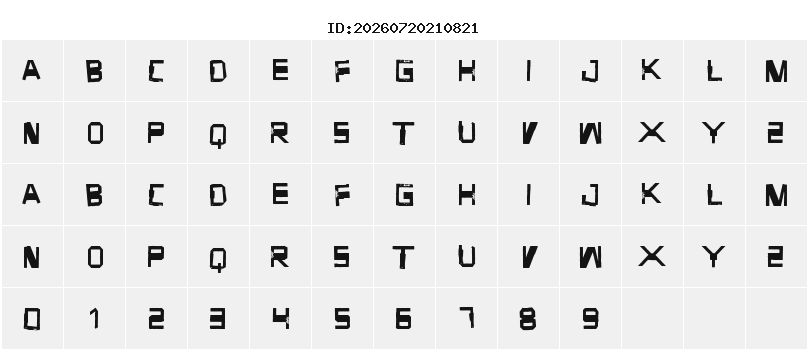
• Font Name: Forgotten Junk
• Designer: Galdino Otten
About Forgotten Junk.ttf
Forgotten Junk.ttf is a modern, elegant sans-serif font designed for ultimate readability and visual harmony. Perfect for branding, headlines, web design, and print materials.